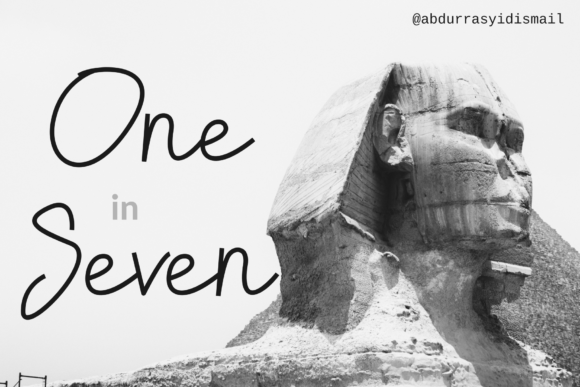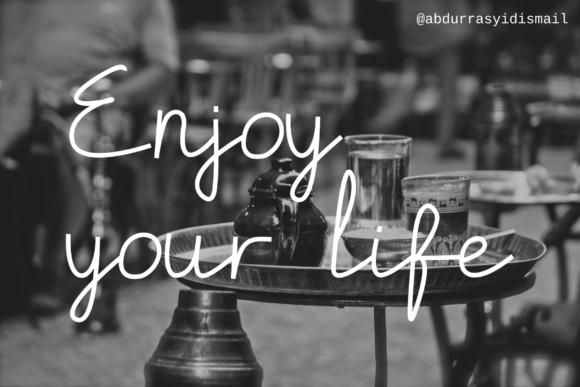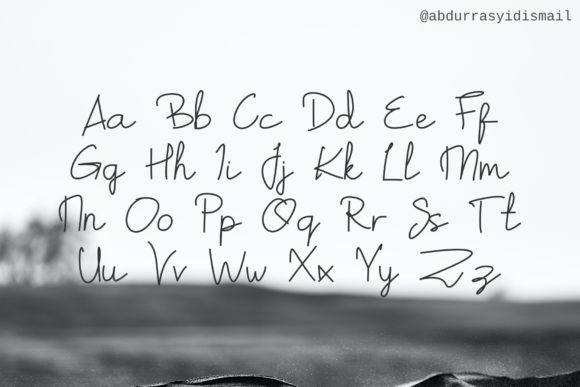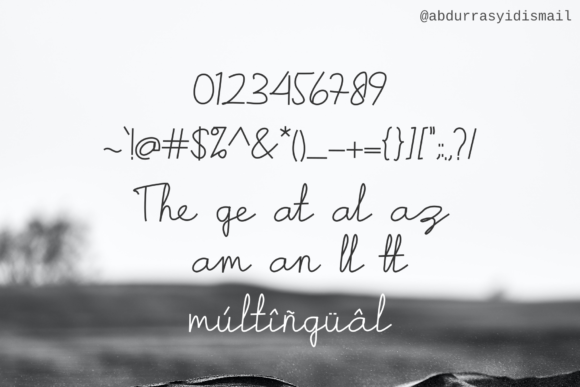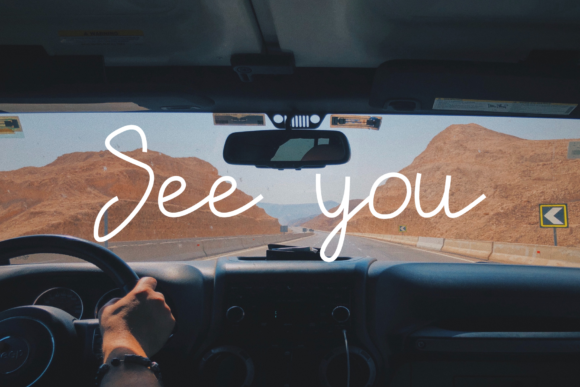
Zamalek Font
About Zamalek Font
The Zamalek is an amazing handwritten script font. It has an original handwritten structure which is perfect for adding a natural look to your designs.
It can be used for signatures, magazines, watermarks, and much more!